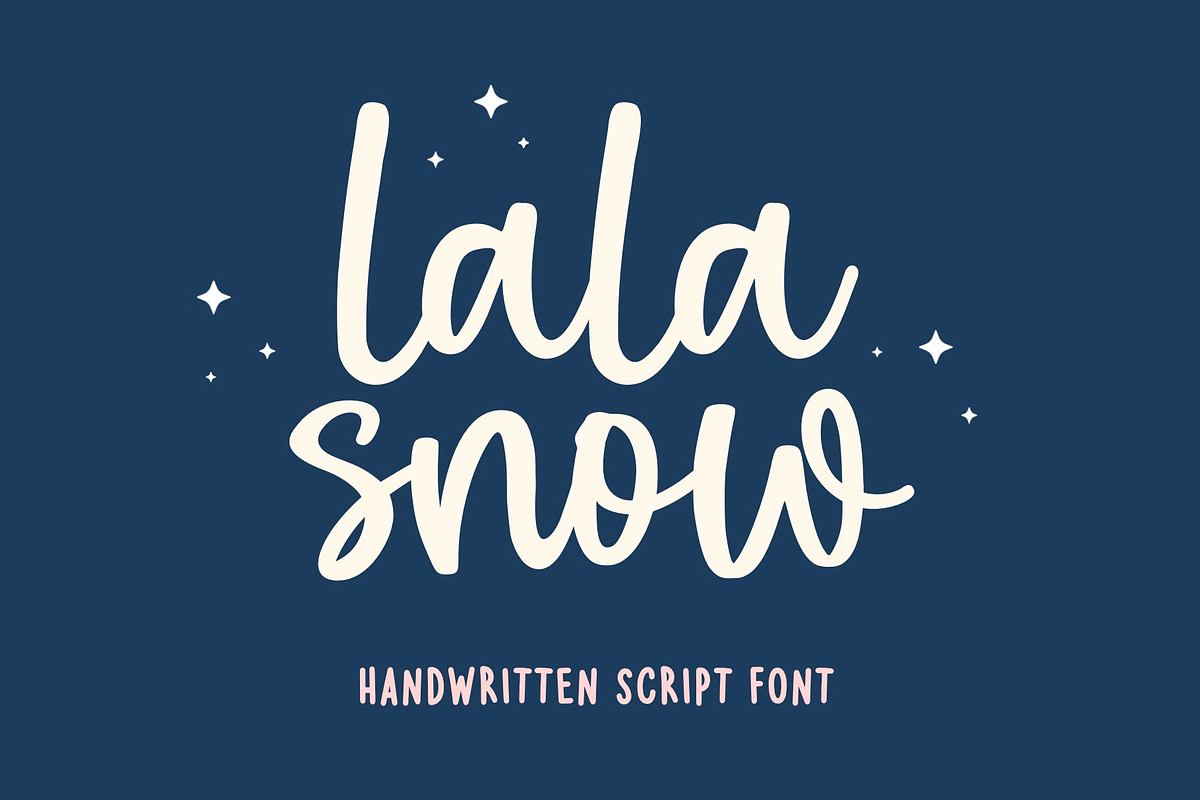
Please note, you must purchase this font for commercial use. However, you can easily download Lala Snow Font - Christmas Font Free Download for personal use and testing purposes. Lala Snow Font - Christmas Font is a festive and fun typeface designed to capture the holiday spirit. Perfect for Christmas cards, invitations, holiday banners, and seasonal branding, this font features playful, snowy accents that make it ideal for any winter or Christmas-themed design. Whether you're creating cheerful holiday invitations, promotional material for a Christmas event, or a festive logo, Lala Snow Font - Christmas Font Free Download will add a warm, merry touch to your projects. Download Lala Snow Font - Christmas Font Free Download today and explore its potential before opting for a commercial license.